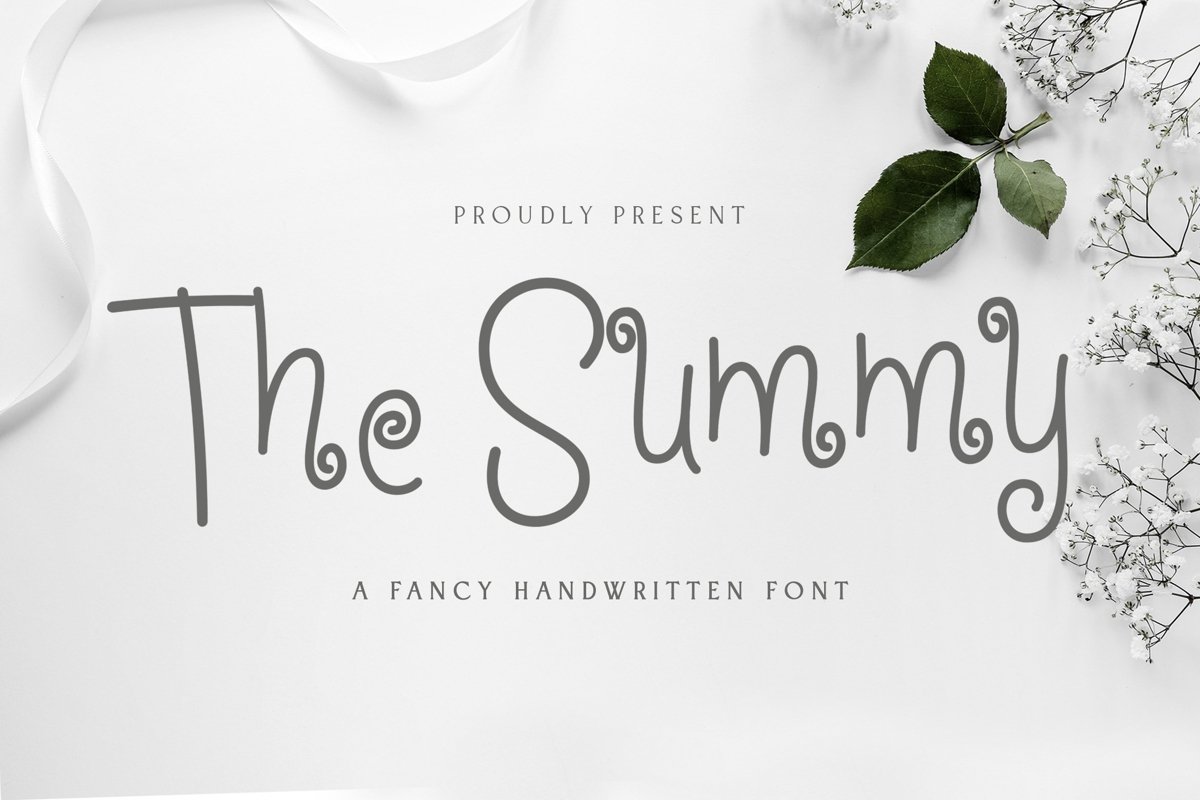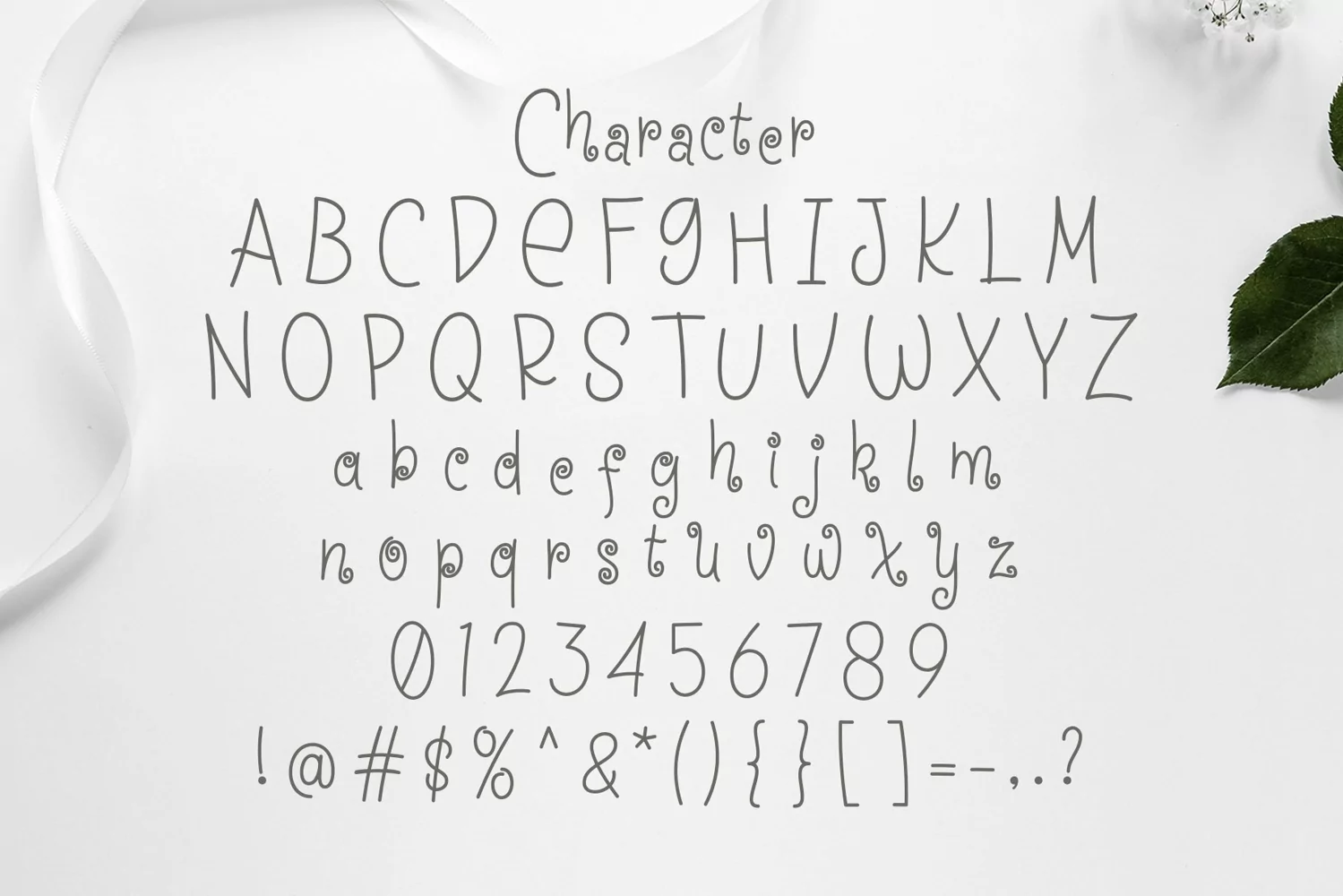
Summy is a curly handwritten typeface. perfect for display, quotes, poster, packaging, merchandise, header, tittle, print, pin, t-shirt, pillow, branding, crafting needs, wedding needs, and many more.